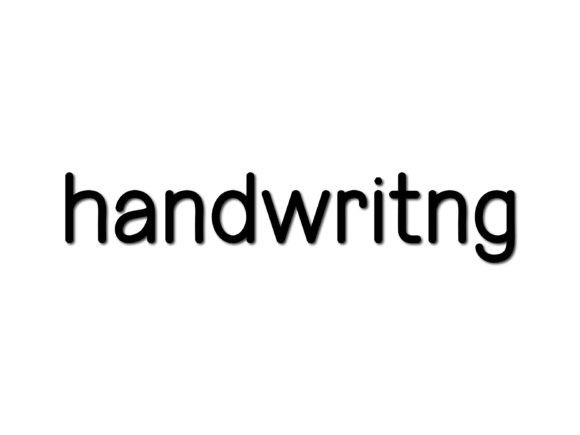
Strong Farmhouse Font
Strong Farmhouse handwriting font is a type of font, that would be an amazing addition to your fun projects and designs. The look is handwritten text, with a rustic and nostalgic feel. It is often used in farmhouse-themed designs, such as signs, crafts, Logos, and branding materials.